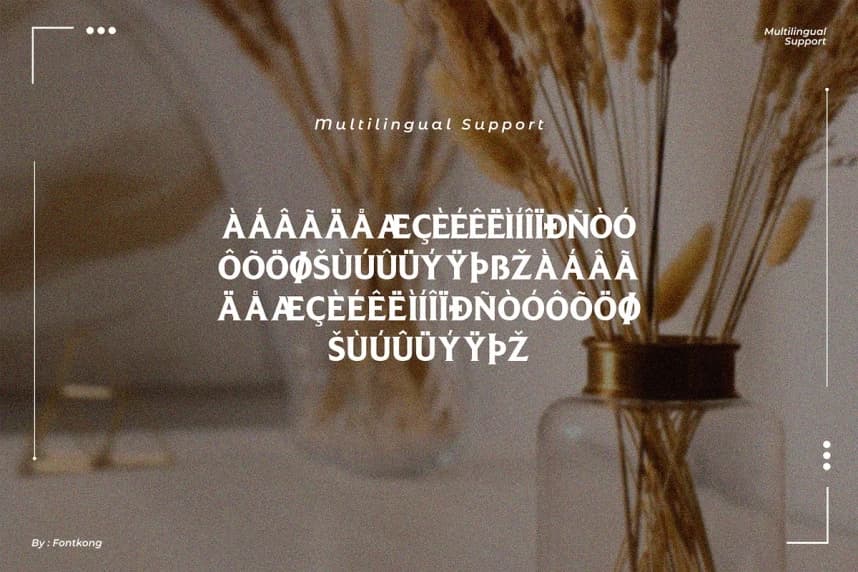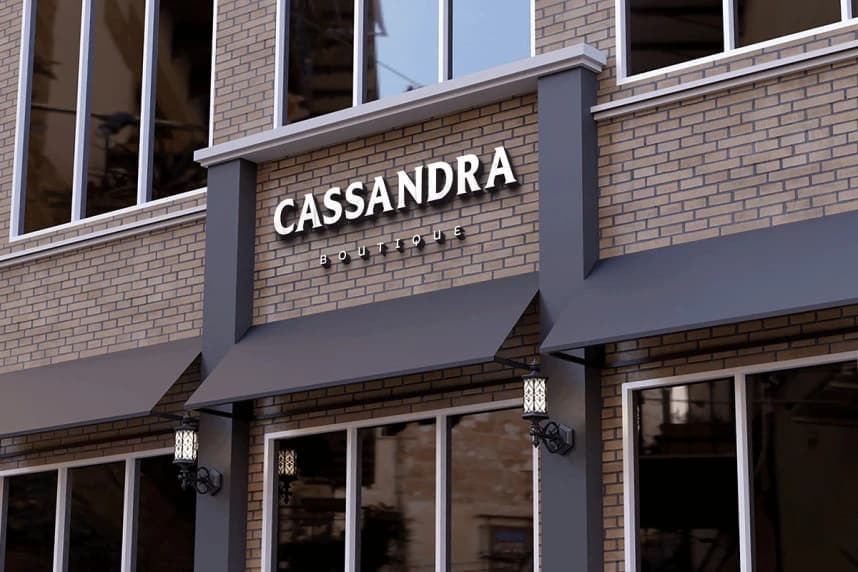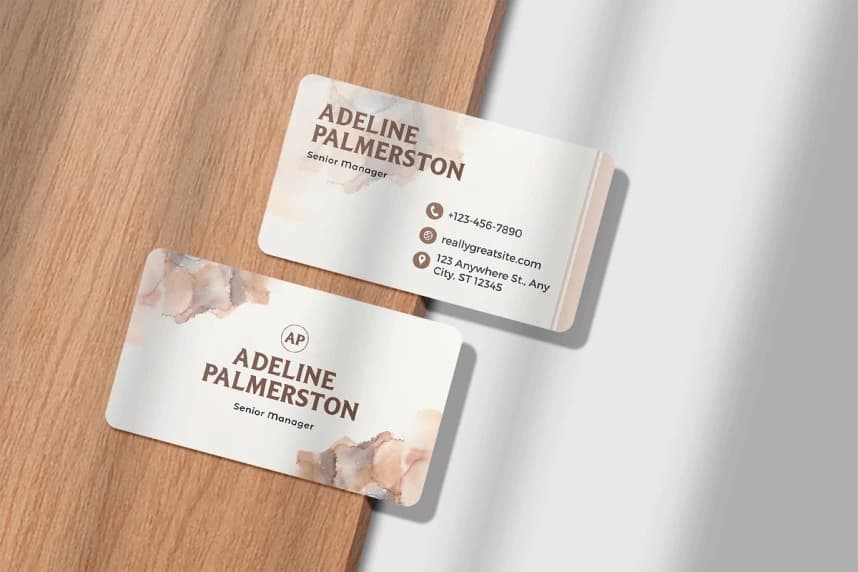
Glowmore Font
Glowmore, a classy serif font that combines timeless style with modern flair. Ideal for branding, invitations, editorial layouts, and luxury packaging, this typeface exudes elegance and professionalism.